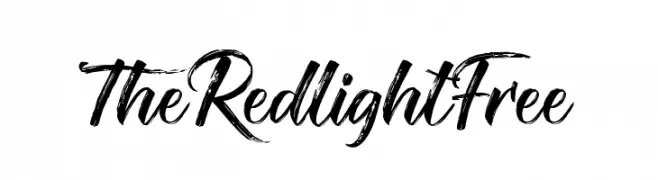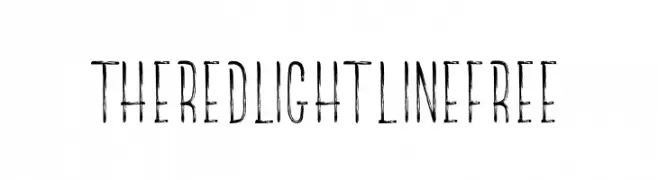
A bold, outlined serif font with a classic yet modern appeal.
A bold, distressed script font with dynamic, hand-painted strokes.
A distressed, hand-drawn font with a vintage, grunge aesthetic.
A distressed, textured font with a vintage, hand-drawn style.
A dynamic and elegant script font with fluid, cursive letterforms.
A playful, bold font with rounded edges and a friendly appearance.
Bold, angular font with a rugged, industrial style.
A bold, angular font with a rugged, hand-crafted appearance.
A playful, decorative script font with looping, interconnected strokes.